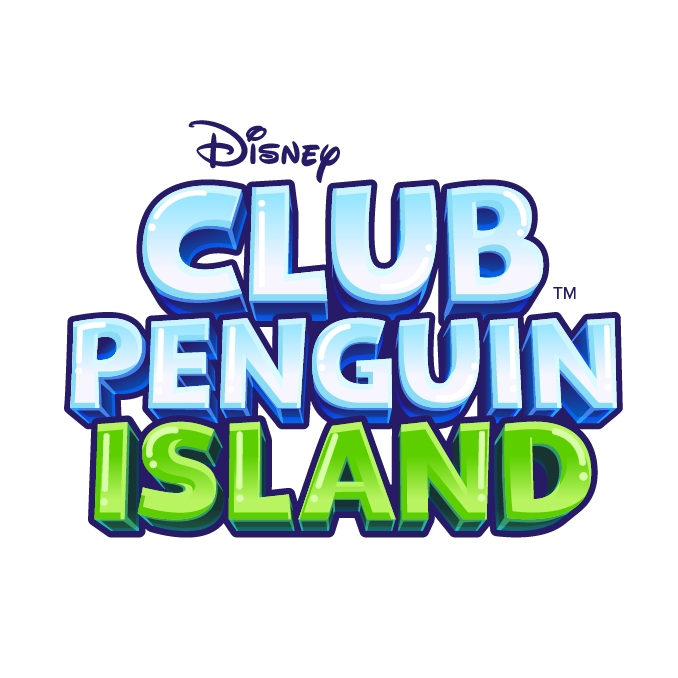
Club Penguin Island Font
The game logo uses Loyola font, designed by Rodrigo Araya Salas, a rugged and cheerful sans-serif typeface for headlines that supports Latin and Cyrillic letters. More details about the font are available here.